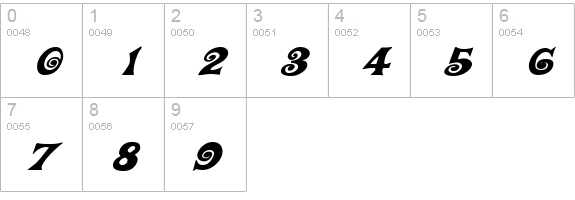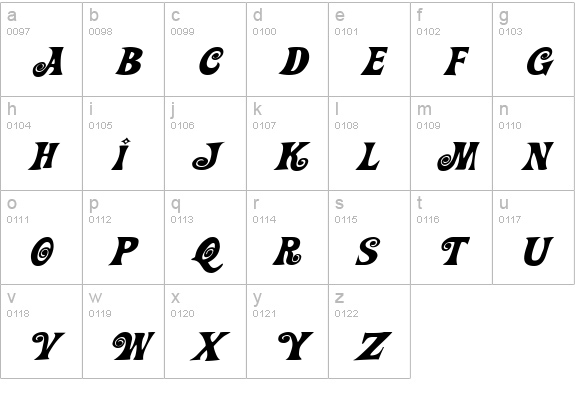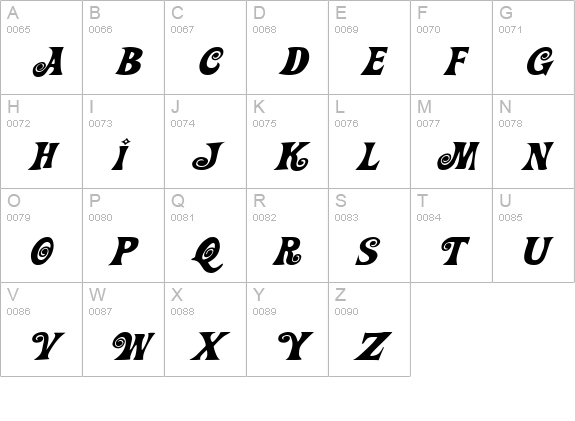
Action Is JL Expanded Italic Font Details
Action Is JL Expanded Italic is a distinctive, extended-width, italic variant in the Action typeface family \xE2\x80\x94 well suited to design and typography projects.
Action Is JL Expanded Italic is a dynamic and modern font that exudes energy and motion. Its sleek and bold design makes it perfect for projects that require a sense of urgency and movement. The italicized style adds a touch of elegance and sophistication to any design. This versatile font is ideal for headlines, titles, posters, and other graphic design projects where you want to grab the viewer's attention. Whether you're creating a high-impact advertisement or a stylish magazine layout, Action Is JL Expanded Italic is sure to make a statement. Best of all, this font is completely free to download at FontsMarket.com. So why wait? Add a touch of action and excitement to your designs with Action Is JL Expanded Italic today!